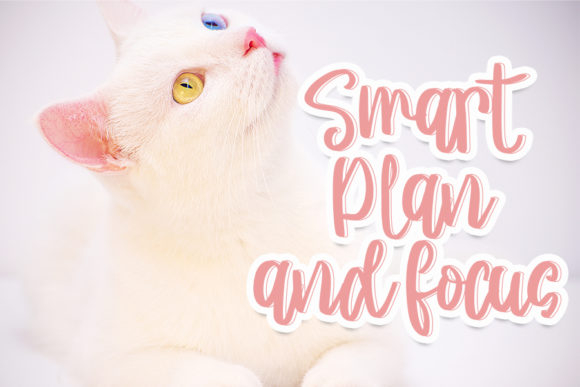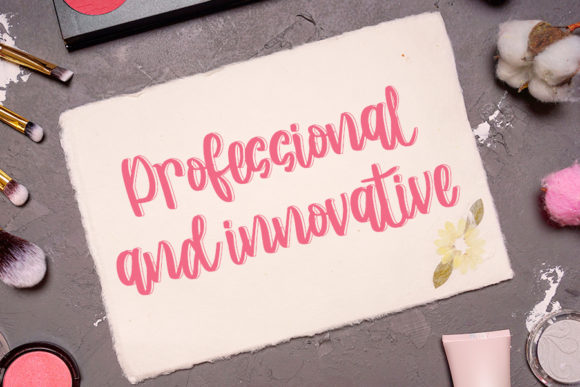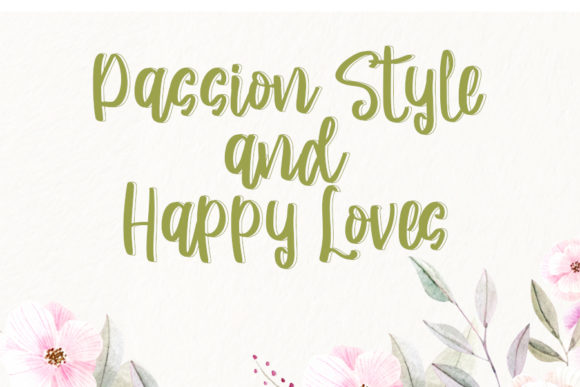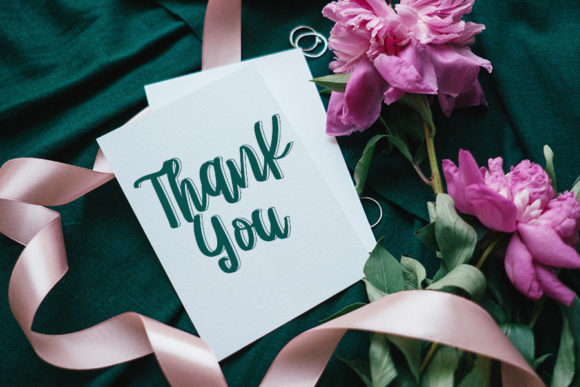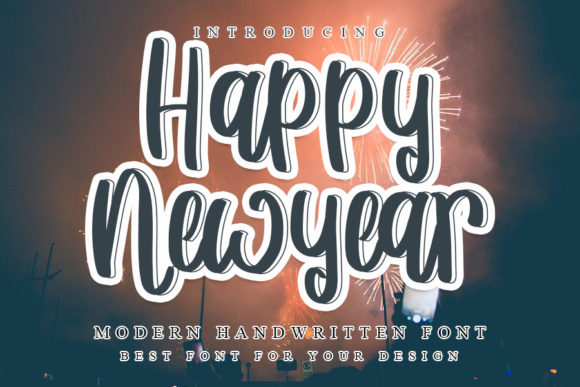
Happy New Year Font: The Perfect Addition to Your Design Projects
As the clock strikes midnight on New Year’s Eve, we bid adieu to the old year and welcome the new one with open arms. What better way to celebrate this joyous occasion than with a beautiful and festive font? Introducing the Happy New Year Font, a simple, cute, and trendy handwritten font that’s perfect for all your design projects.
What Makes Happy New Year Font So Special?
The Happy New Year Font is a versatile and charming font that’s suitable for a wide range of applications. Whether you’re a designer, crafter, or DIY enthusiast, this font is sure to delight. Its playful and whimsical design makes it ideal for:
- Crafting: Use the Happy New Year Font to add a personal touch to your handmade cards, gift tags, and scrapbook pages.
- Digital Designing: Add a festive flair to your social media graphics, blog posts, and website headers with this delightful font.
- Presentations: Make your presentations more engaging and fun with the Happy New Year Font’s playful and energetic vibe.
- Greeting Cards Making: Create beautiful and heartfelt greeting cards for special occasions using this lovely font.
Key Features of Happy New Year Font
The Happy New Year Font boasts several key features that make it a must-have for designers and crafters:
- Handwritten Design: The font’s handwritten design gives it a personal and organic feel that’s perfect for creating unique and eye-catching designs.
- Simple and Cute: The font’s simplicity and cuteness make it easy to read and use in a variety of contexts.
- Trendy: The Happy New Year Font is up-to-date with the latest design trends, ensuring your designs look modern and fresh.
- Versatile: The font’s versatility makes it suitable for a wide range of applications, from digital designing to crafting.
Tips for Using Happy New Year Font
To get the most out of the Happy New Year Font, here are some tips to keep in mind:
- Pair it with Other Fonts: Combine the Happy New Year Font with other fonts to create visually appealing and dynamic designs.
- Experiment with Colors: Try out different colors and color combinations to add depth and interest to your designs.
- Use it for Headings and Titles: The Happy New Year Font is perfect for headings and titles, adding a touch of personality and whimsy to your designs.
- Don’t Forget About Ligatures: Take advantage of the font’s ligatures to add a touch of elegance and sophistication to your designs.
Where to Use Happy New Year Font
The Happy New Year Font is suitable for a wide range of applications, including:
- Social Media Graphics: Use the font to create eye-catching social media graphics that showcase your creativity and style.
- Blog Posts: Add a touch of personality to your blog posts with the Happy New Year Font’s playful and engaging design.
- Website Headers: Make a great first impression with the font’s modern and trendy design.
- Print-on-Demand Products: Use the Happy New Year Font to create unique and eye-catching print-on-demand products, such as t-shirts, mugs, and phone cases.